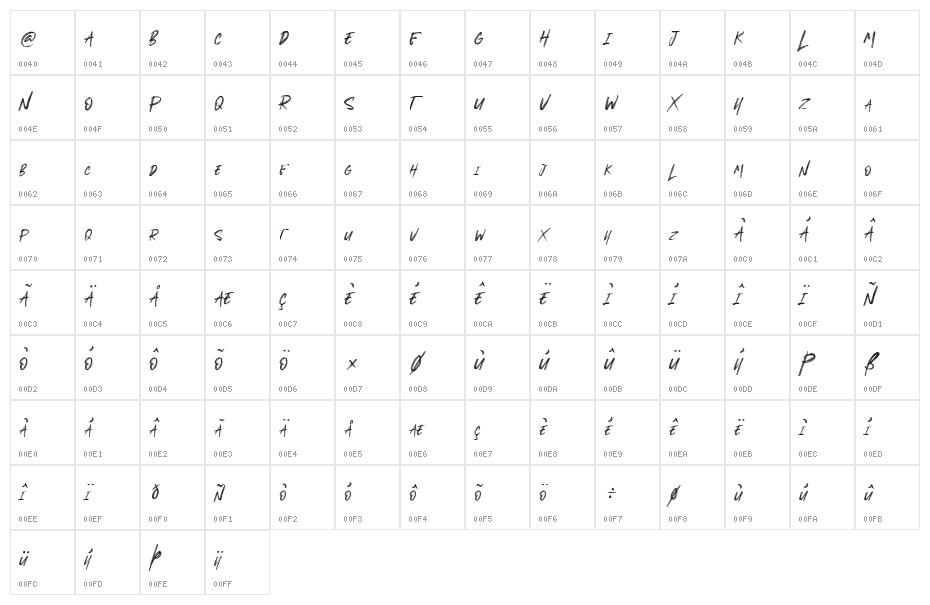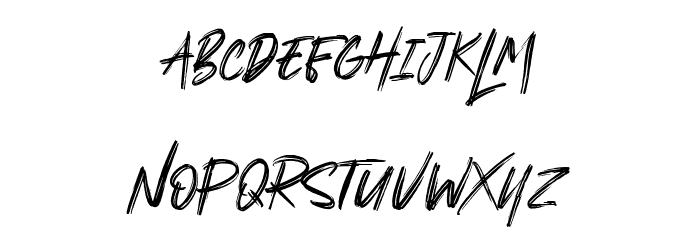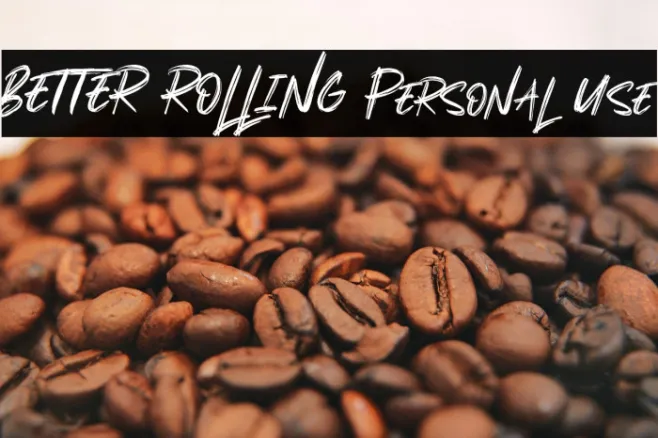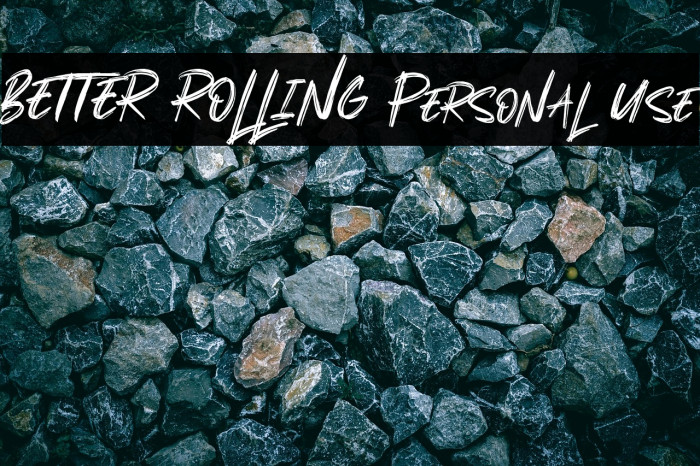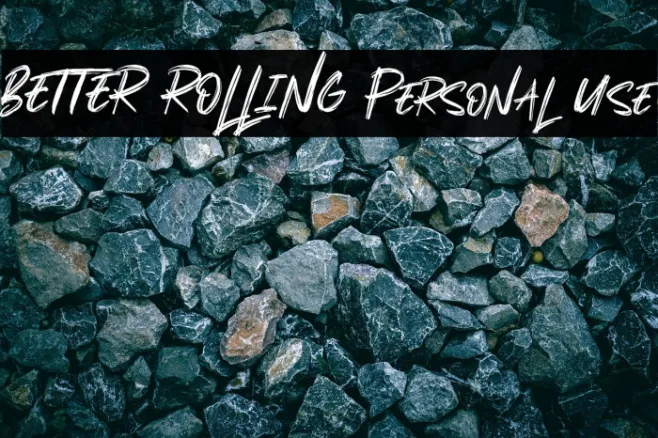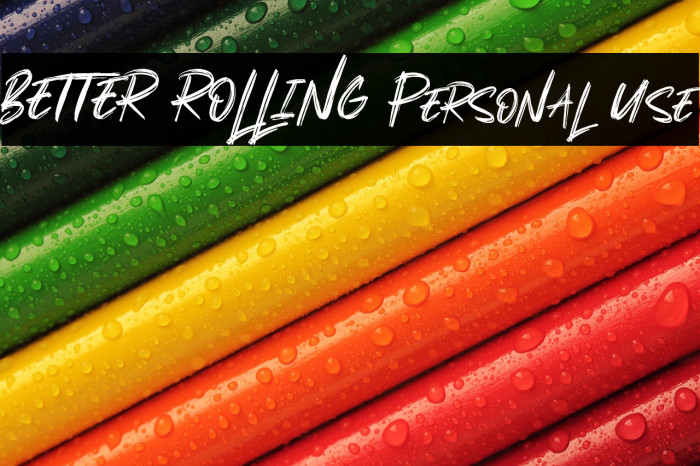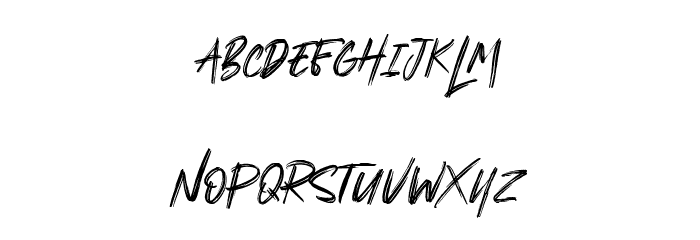
BETTER ROLLING Personal Use Font
BETTER ROLLING Personal Use Description
This font features a dynamic and energetic style, characterized by its brush-like strokes and slightly irregular letterforms. The uppercase and lowercase letters exhibit a sense of movement and spontaneity, making it ideal for projects that require a lively and informal touch. The font's design incorporates a mix of thick and thin strokes, adding to its expressive nature. The overall appearance is both bold and artistic, with a hint of edginess that can capture attention effectively. It's well-suited for creative projects, branding, and any design that aims to convey a sense of freedom and creativity.